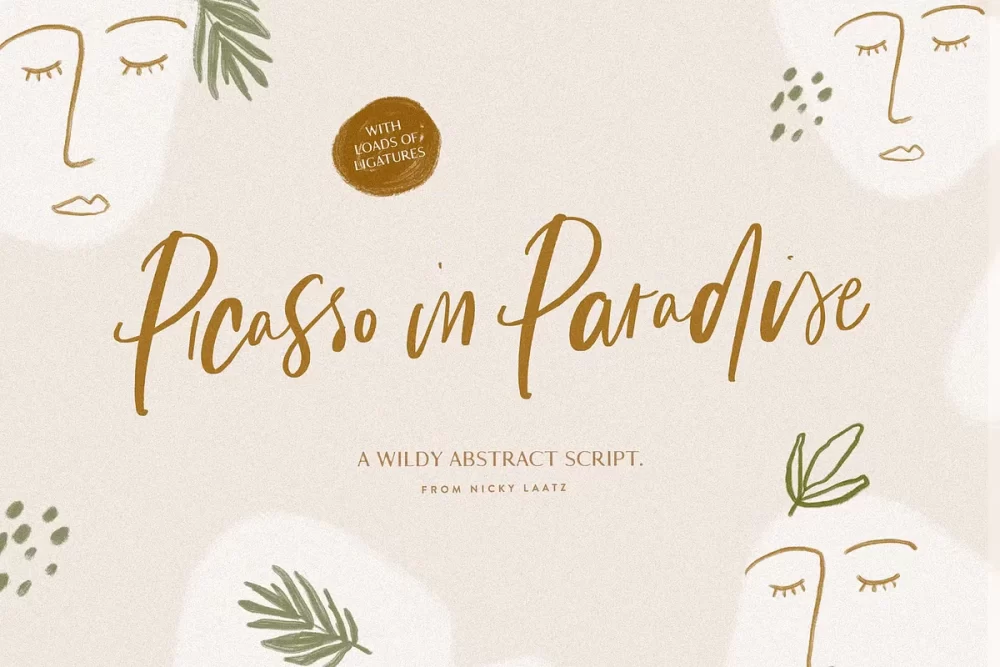
Say hello to ‘Picasso in Paradise’ – a fresh and avant-garde script with a carefree attitude and a playful edge. Perfect for adding a quirky but casual feel, Picasso in Paradise comes with a large selection of natural-looking ligatures, that form automatically as you type when you have your OpenType features active.